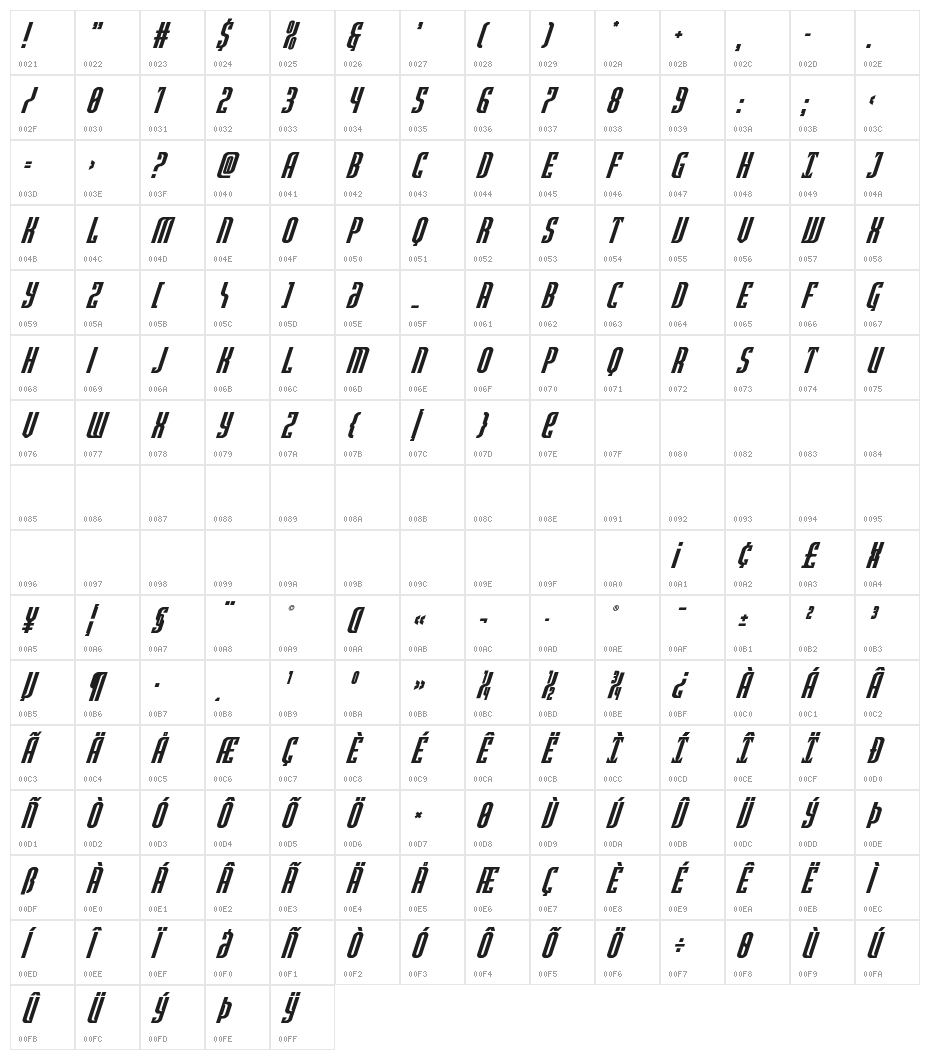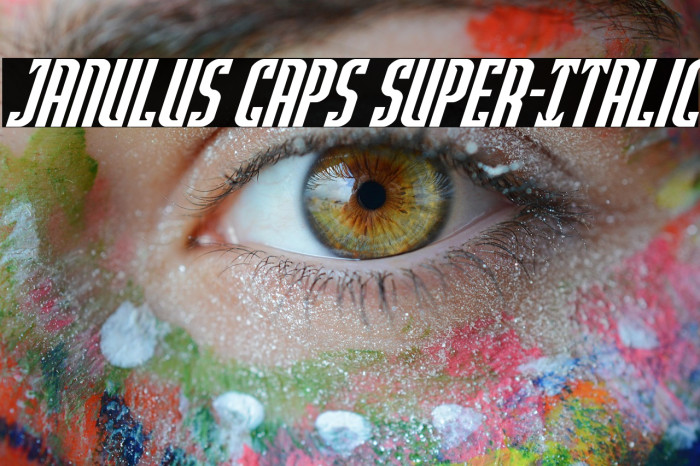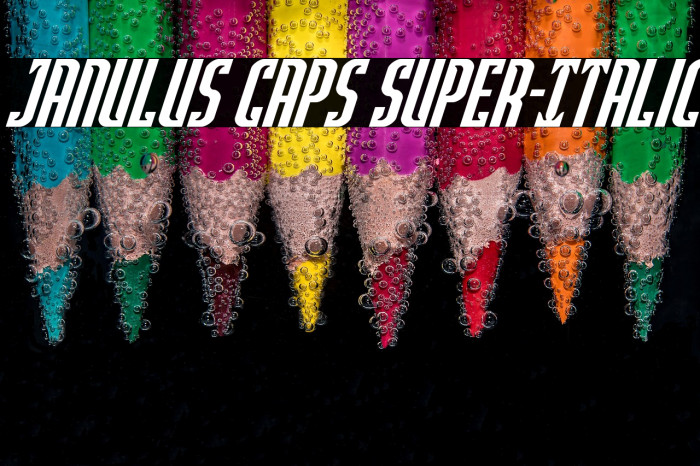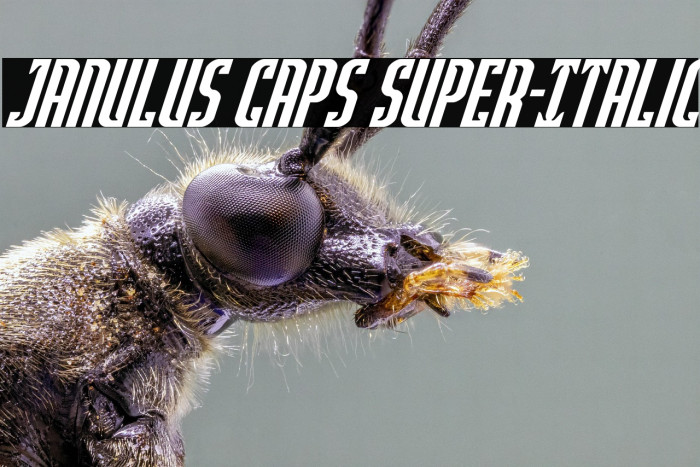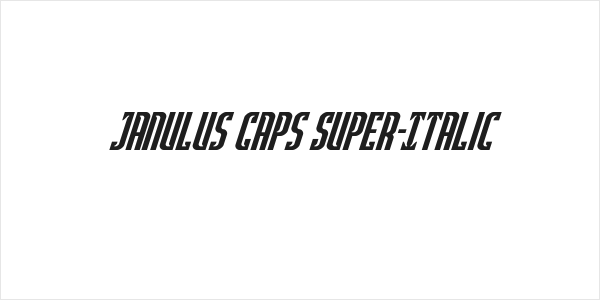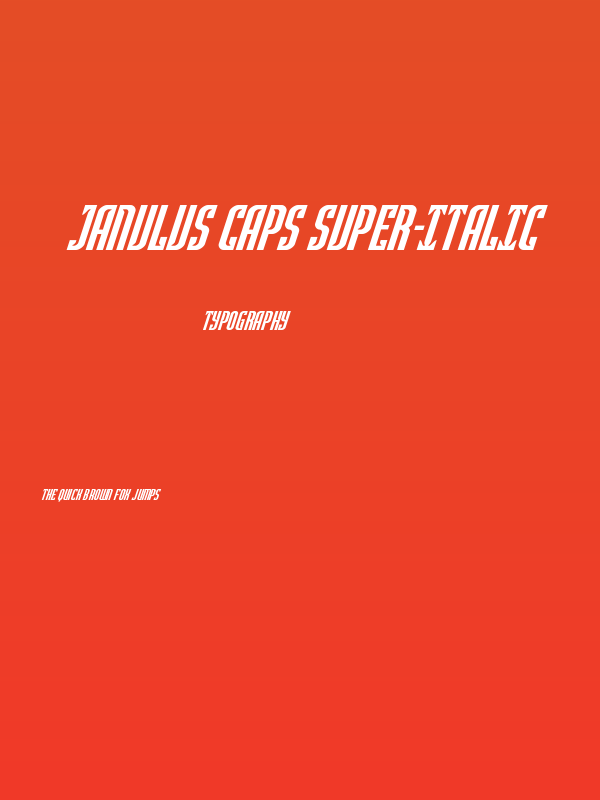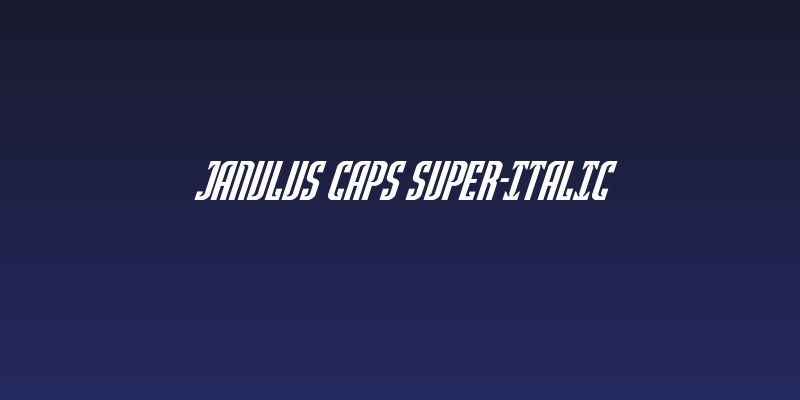
Janulus Caps Super-Italic Font
Janulus Caps Super-Italic Description
This font features a bold and dynamic style with a strong italic slant, giving it a sense of motion and energy. The characters are elongated and slightly condensed, creating a sleek and modern appearance. The strokes are thick and consistent, providing a high contrast that enhances readability while maintaining a distinctive look. The uppercase letters are particularly striking, with sharp angles and clean lines that make them stand out. This font is well-suited for projects that require a bold statement, such as headlines, posters, and branding materials.
| Proposed Projects | Ideal for headlines, posters, branding, and any project needing a bold, energetic typeface. |